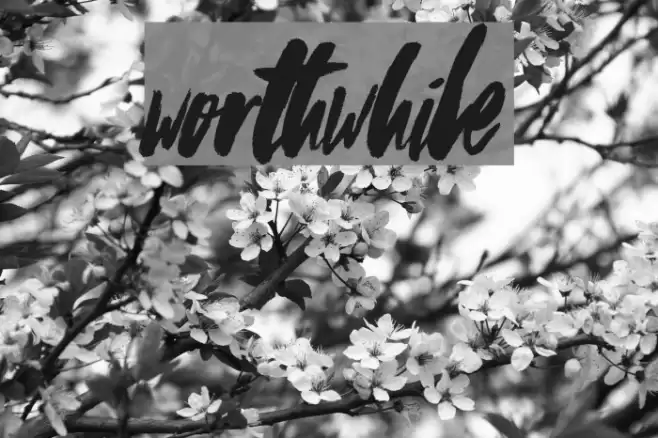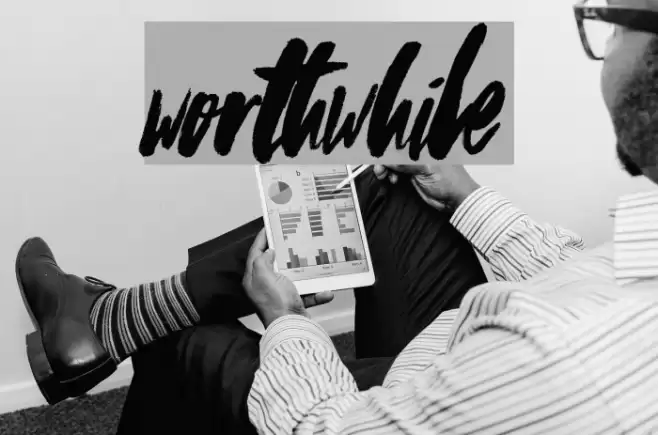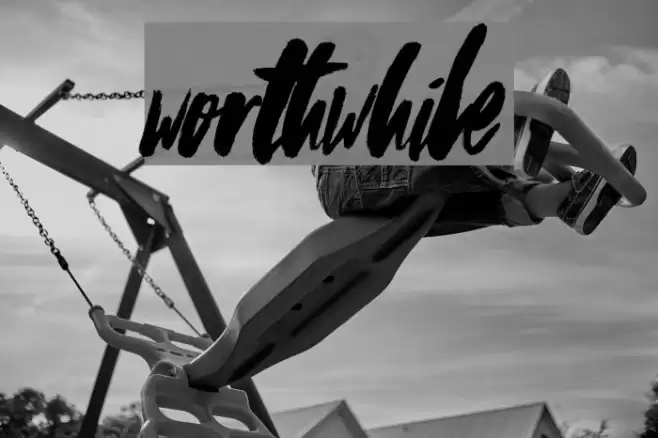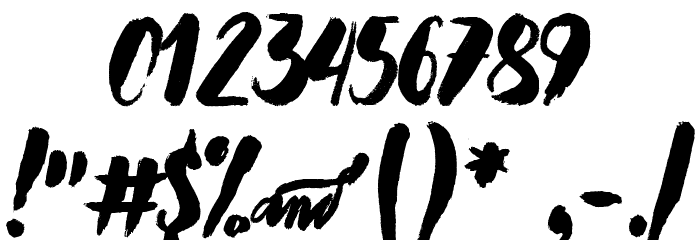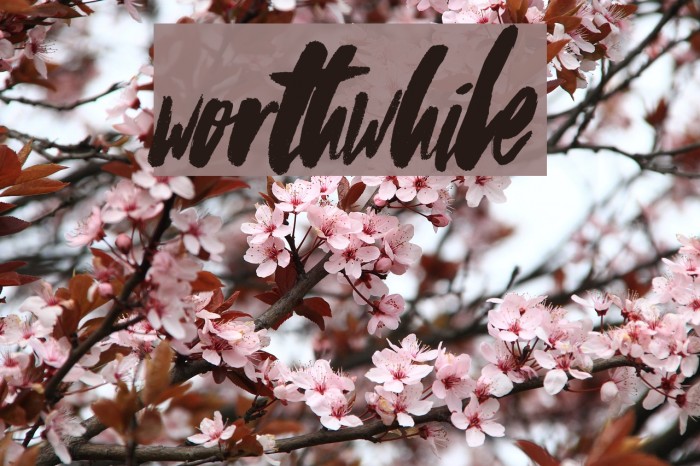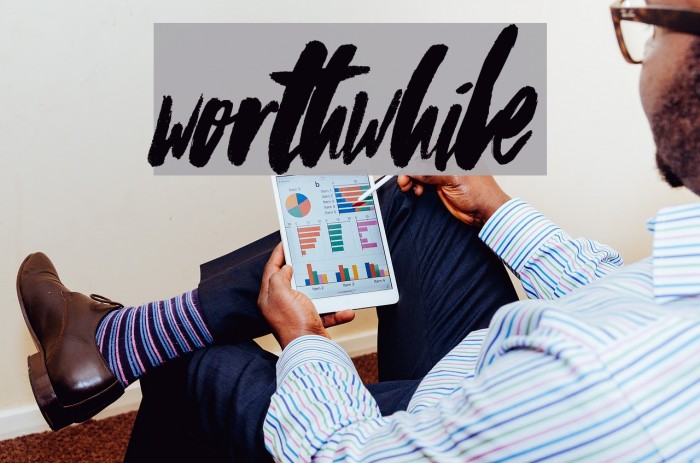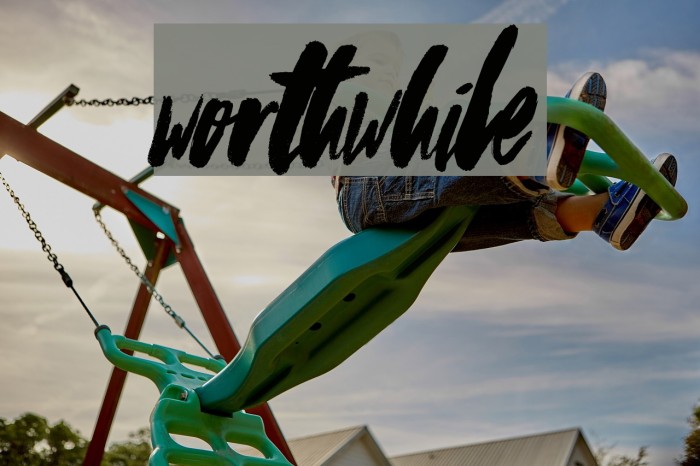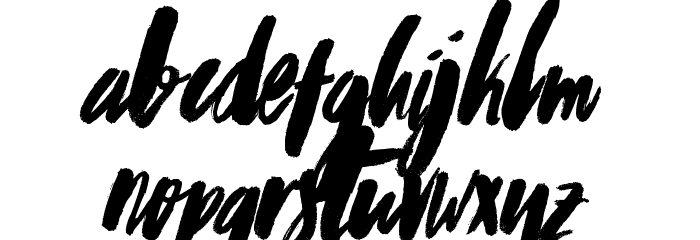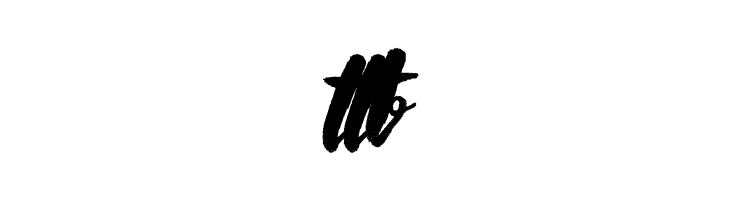
Worthwhile Font
Worthwhile Description
This font exudes a bold and expressive style, characterized by its brush script appearance. The letters are fluid and dynamic, with a sense of movement and energy. The strokes are thick and varied, creating a high contrast between the thick and thin parts of the letters. This gives the font a lively and artistic feel, suitable for creative and informal applications. The characters are closely spaced, enhancing the cohesive and flowing nature of the text. The overall style is modern and decorative, making it ideal for eye-catching designs.
A bold, expressive brush script font with high contrast and dynamic strokes from Uncategorized fonts.
- Proposed Projects: Ideal for branding, posters, invitations, and artistic projects that require a lively and creative touch.
- Character Spacing: Tight
- Overall Style: Modern, Decorative